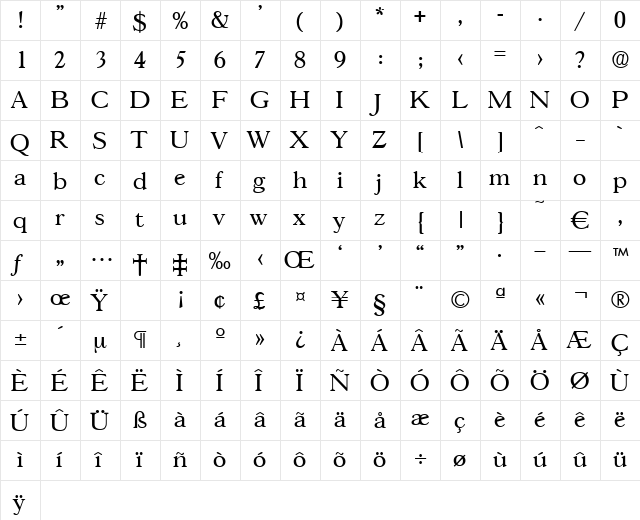
Gascogne-Regular Regular
Design Context for Gascogne-Regular Typeface
Gascogne-Regular offers clean, dependable letterforms without strong stylistic allegiance, making it a practical choice for designers who need flexibility.